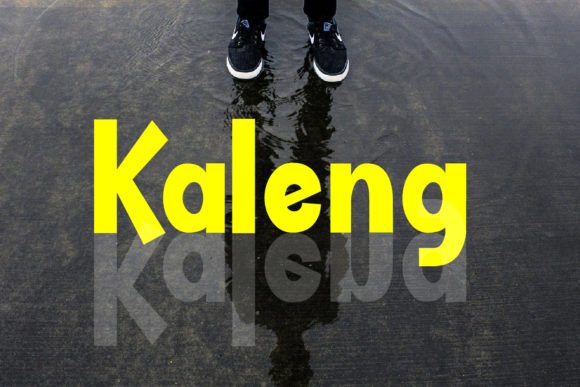
Discover the Unbridled Joy of Kaleng Font
As a designer, have you ever been stuck in a creative rut, searching for that elusive spark to ignite your next project? For me, it was a late-night brainstorming session, surrounded by scattered papers and a computer screen filled with countless font options. And then, it happened – I stumbled upon Kaleng Font, and my world was forever changed.
Kaleng Font is more than just a typeface; it’s a modern, sans-serif masterpiece that embodies the carefree spirit of creative expression. Designed to bring a touch of whimsy and fun to any project, Kaleng Font is the perfect companion for designers seeking to add a unique twist to their work.
With its versatility and playful charm, Kaleng Font is an invaluable asset for designers looking to elevate their designs and stand out in a crowded industry. So, let’s dive into the world of Kaleng Font and uncover the secrets behind its captivating allure.
Kaleng Font Key Features
- Font Family: Kaleng Font is a sans-serif font family designed for readability and versatility.
- Unique Characteristics: Kaleng Font features a unique blend of modern and minimalist design elements, with clean lines, rounded edges, and a subtle geometric feel.
Kaleng Font Review
Overall, I had a decent experience with the Kaleng font. It has its strengths and weaknesses, which I’ll outline below.
- The Kaleng font has a unique, modern aesthetic that can add a touch of sophistication to various designs.
- It comes in a range of weights and styles, allowing for flexibility in its use.
- The font is highly legible, making it suitable for body text and other content-heavy applications.
- It’s relatively easy to read in various screen resolutions and devices.
- The Kaleng font may not be the best choice for headlines or titles due to its relatively plain appearance.
- Some users may find the font too modern or trendy, which may not appeal to those with a more conservative design sense.
- The font’s range of weights and styles, while extensive, may not be sufficient for users who require a more bespoke look.
The Kaleng font is a solid, dependable choice for designers who want a modern, legible font. While it may not be the best fit for every project, it’s a versatile option that can add a touch of style to various designs. With some careful selection of weights and styles, the Kaleng font can be a valuable addition to any designer’s toolkit.
Getting the Most Out of Kaleng Font
For best results, use Kaleng Font for titles, headings, and emphasis. It pairs well with clean and modern designs.
Experiment with different font sizes and colors to create visual hierarchy and draw attention to important text.
Use Kaleng Font consistently throughout your design to create a cohesive look and feel.
Kaleng Font is suitable for:
Branding and logos
Web design and development
Print materials, such as business cards and brochures
Presentations and reports
Alternatives to Kaleng Font
Montserrat is a modern sans-serif font that is perfect for digital designs. It is highly legible and comes in various weights. Montserrat is ideal for use in headings, titles, and body text where a clean and minimalistic look is desired.
Compared to Kaleng Font, Montserrat is more geometric and has a more modern feel. It is also more versatile and can be used in a wide range of applications, from digital displays to print materials.
Open Sans is a clean and modern sans-serif font that is highly legible. It is designed to be used in digital applications and is perfect for body text, titles, and headings. Open Sans is ideal for use in websites, apps, and other digital platforms.